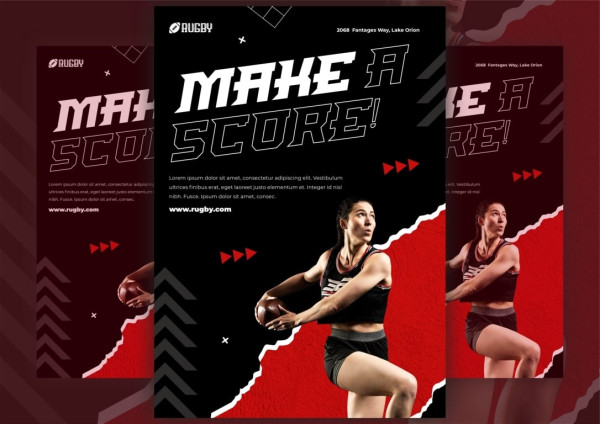
Bigclaw Display Font
Bigclaw Display Font is an impressive sports font that exudes a wide and modern cutout style. It is perfect for capturing the essence of sports titles, whether it be high-speed auto racing, intense running matches, thrilling cycling events, or even automotive game logos. Not only does BIGCLAW Display Font excel in readability and size, but it also conveys a sense of strength and speed. This font was specifically crafted to evoke a fast and dynamic feel, while offering a unique font design that sets it apart.